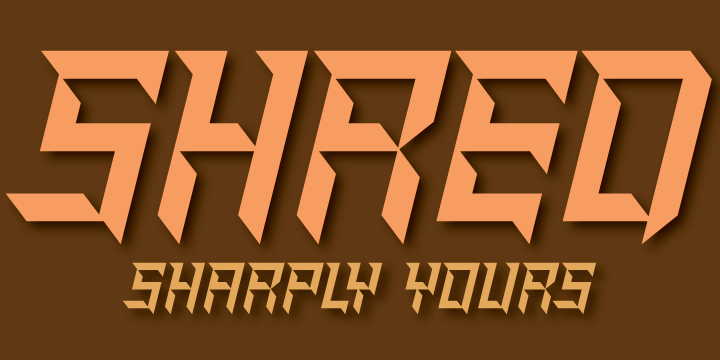
• Shred™
Shred is the result of staring at so-called three-dimensional shapes for days on end, then capping the meditation by eating the white light at the end of the tunnel and sweating it out a blade a second.
Bliss is overrated. Sharpness is where it’s at. Get slicin'.